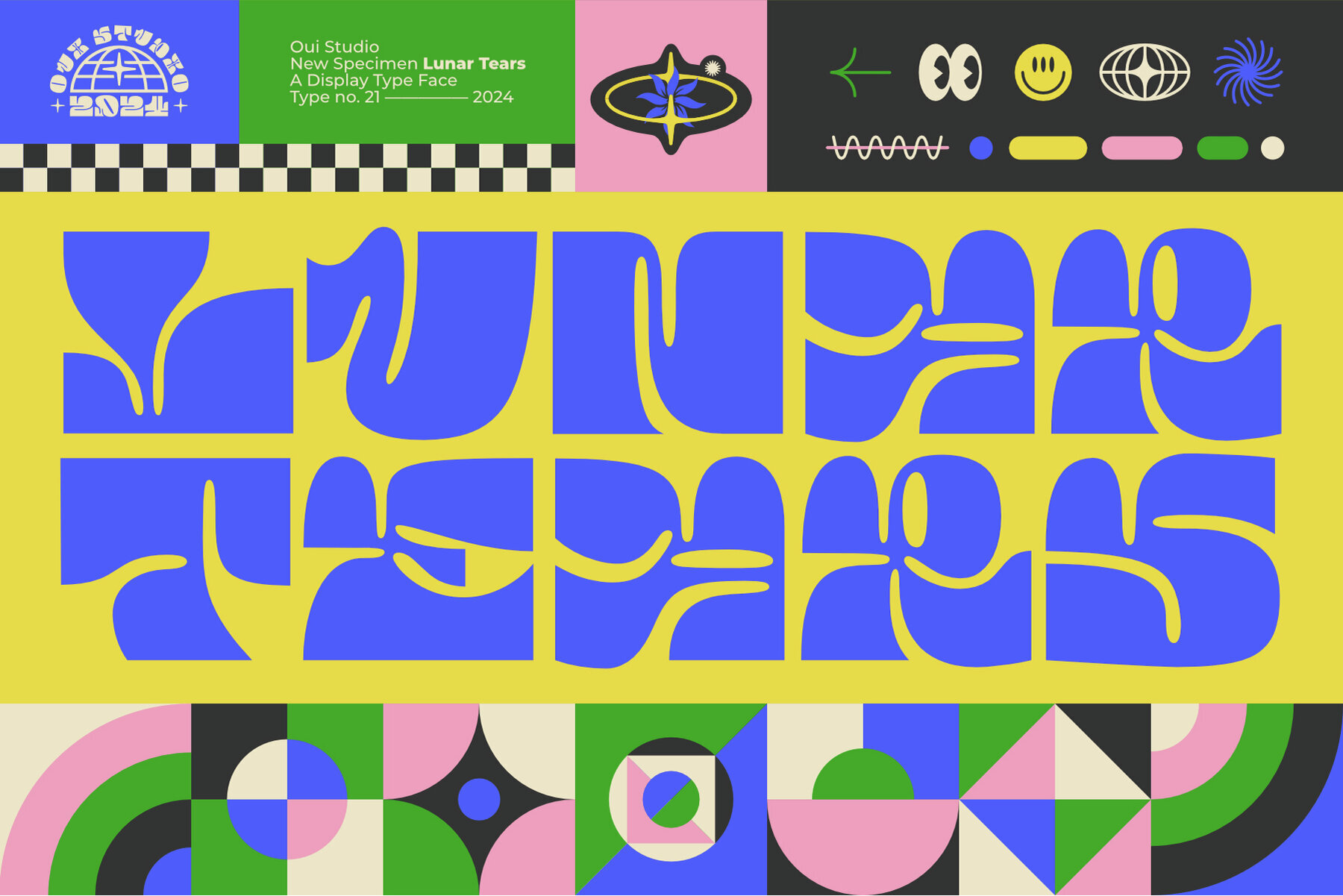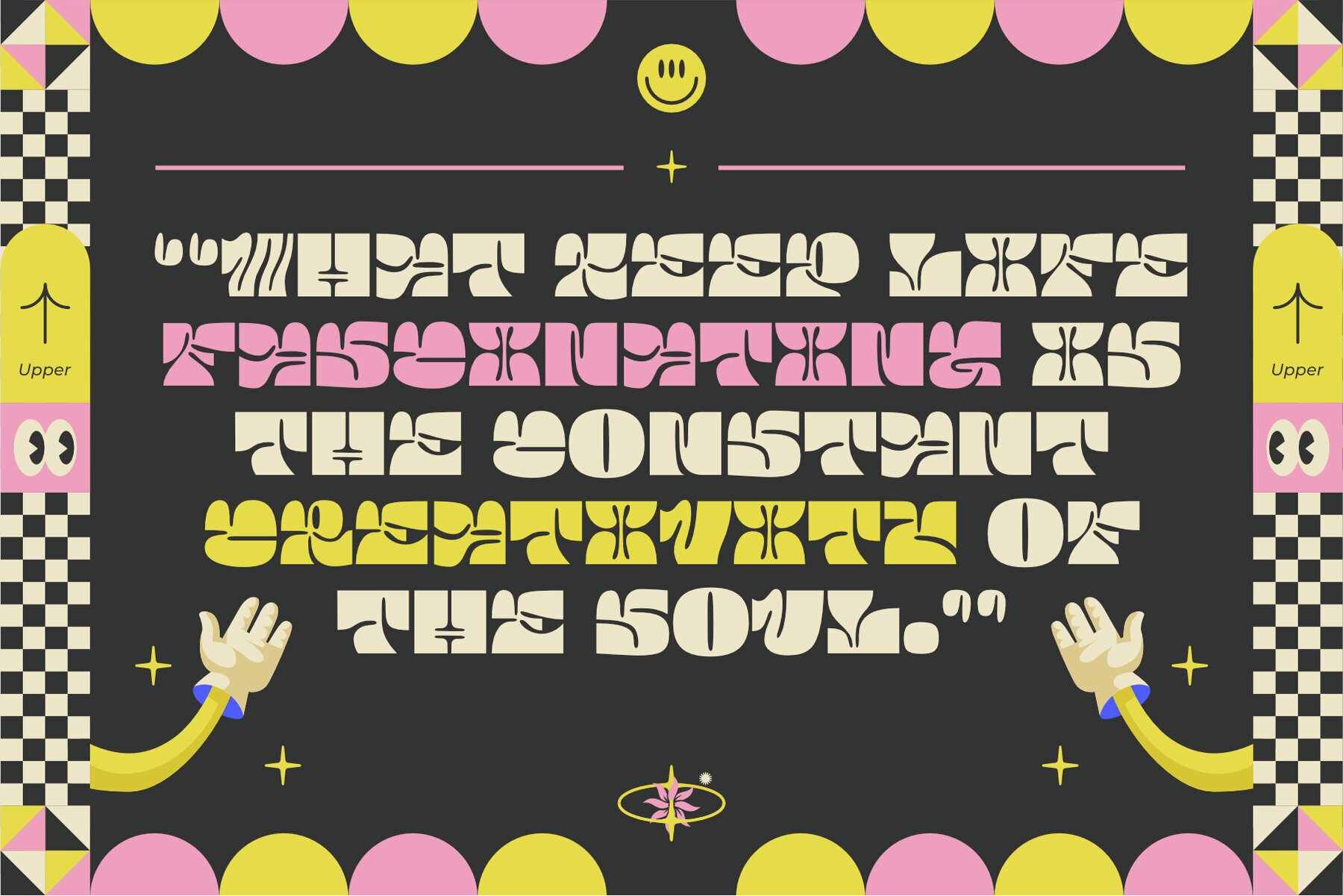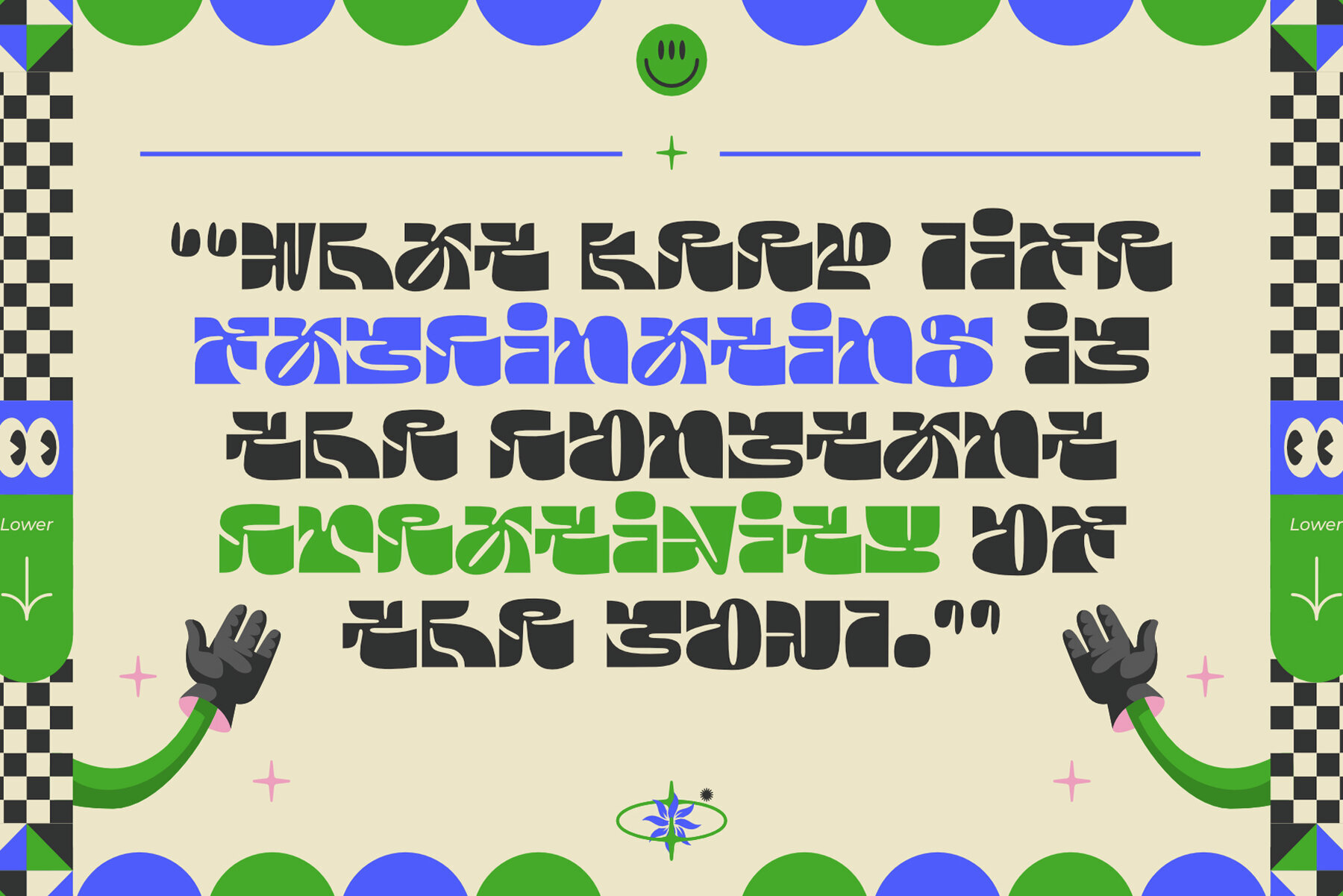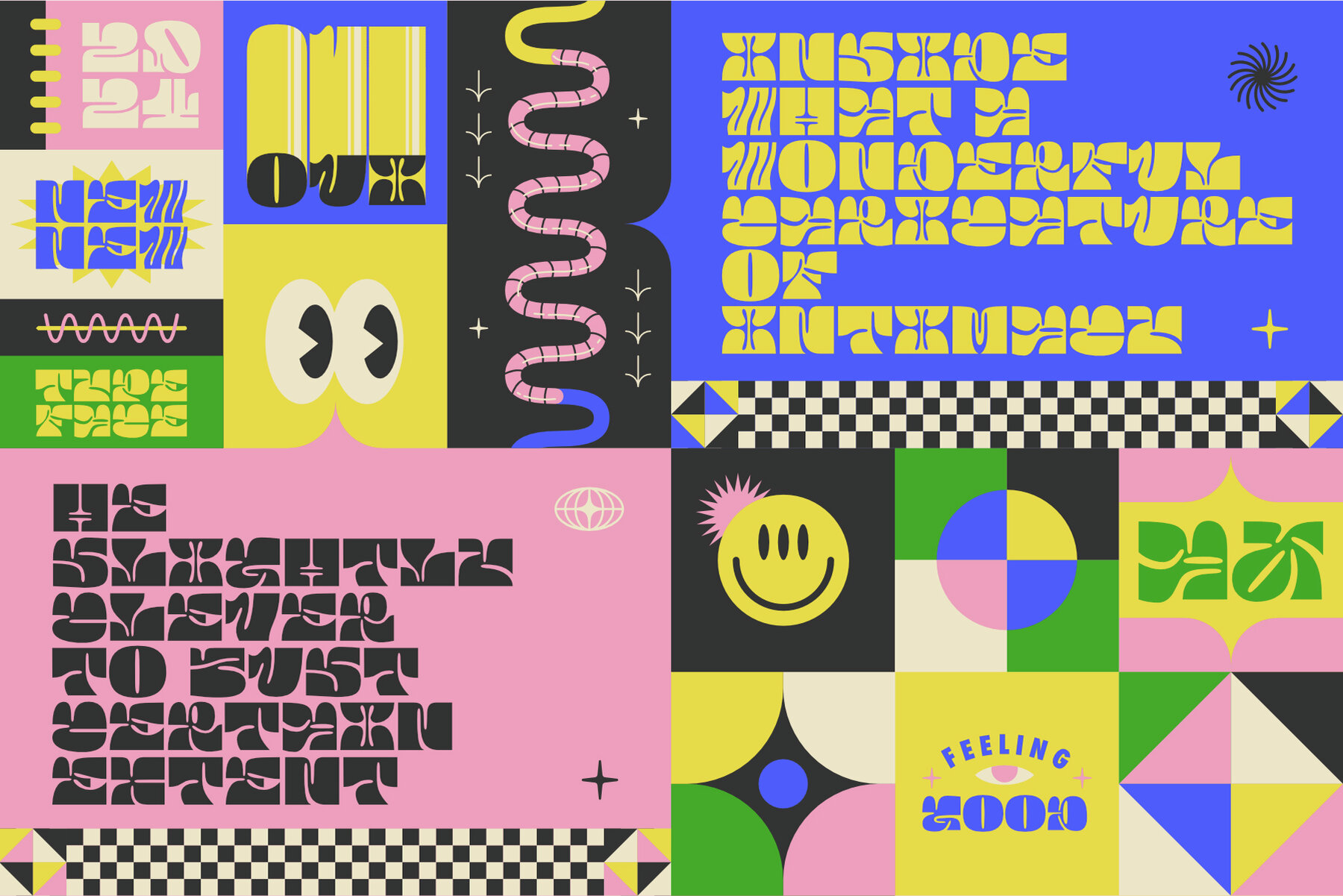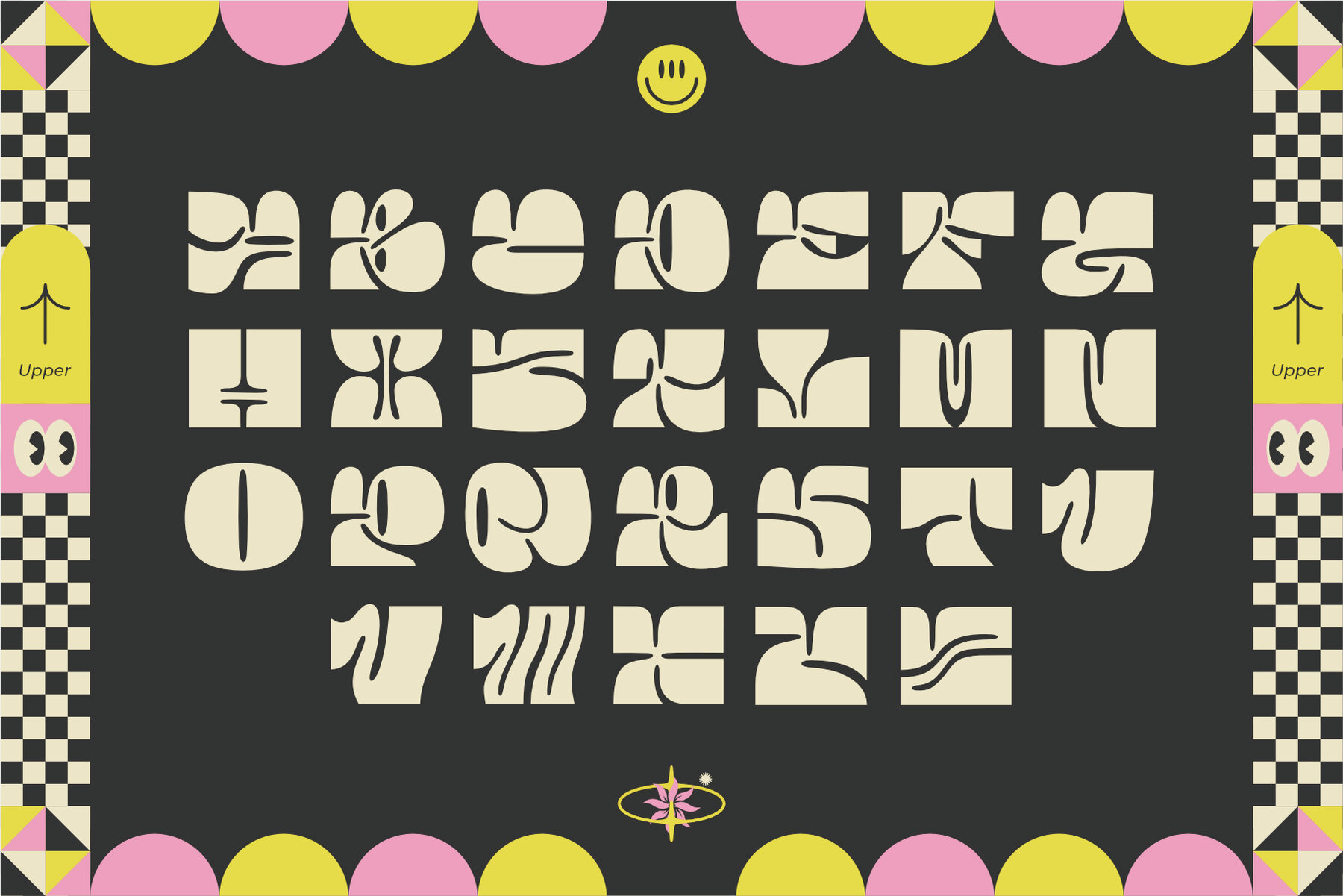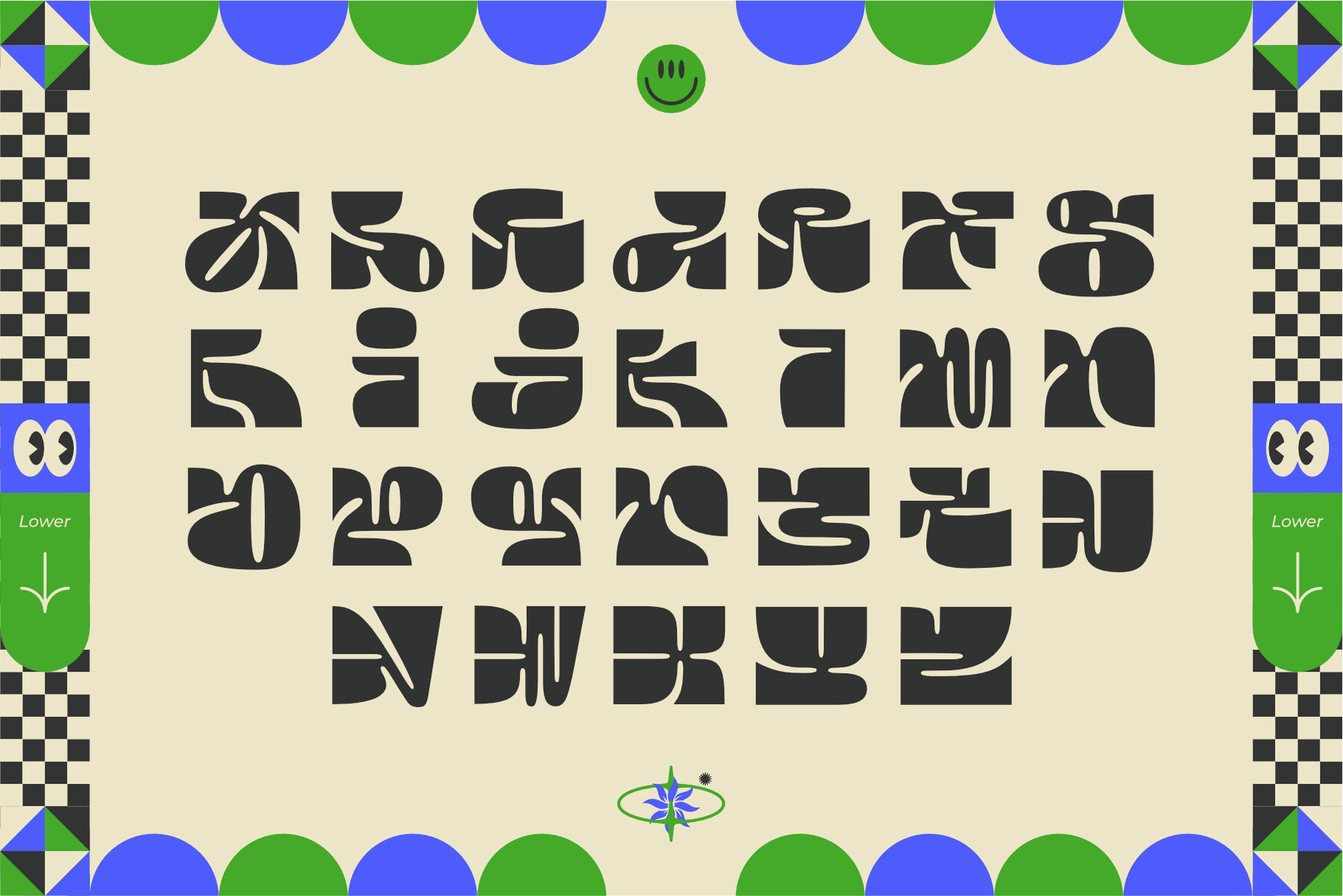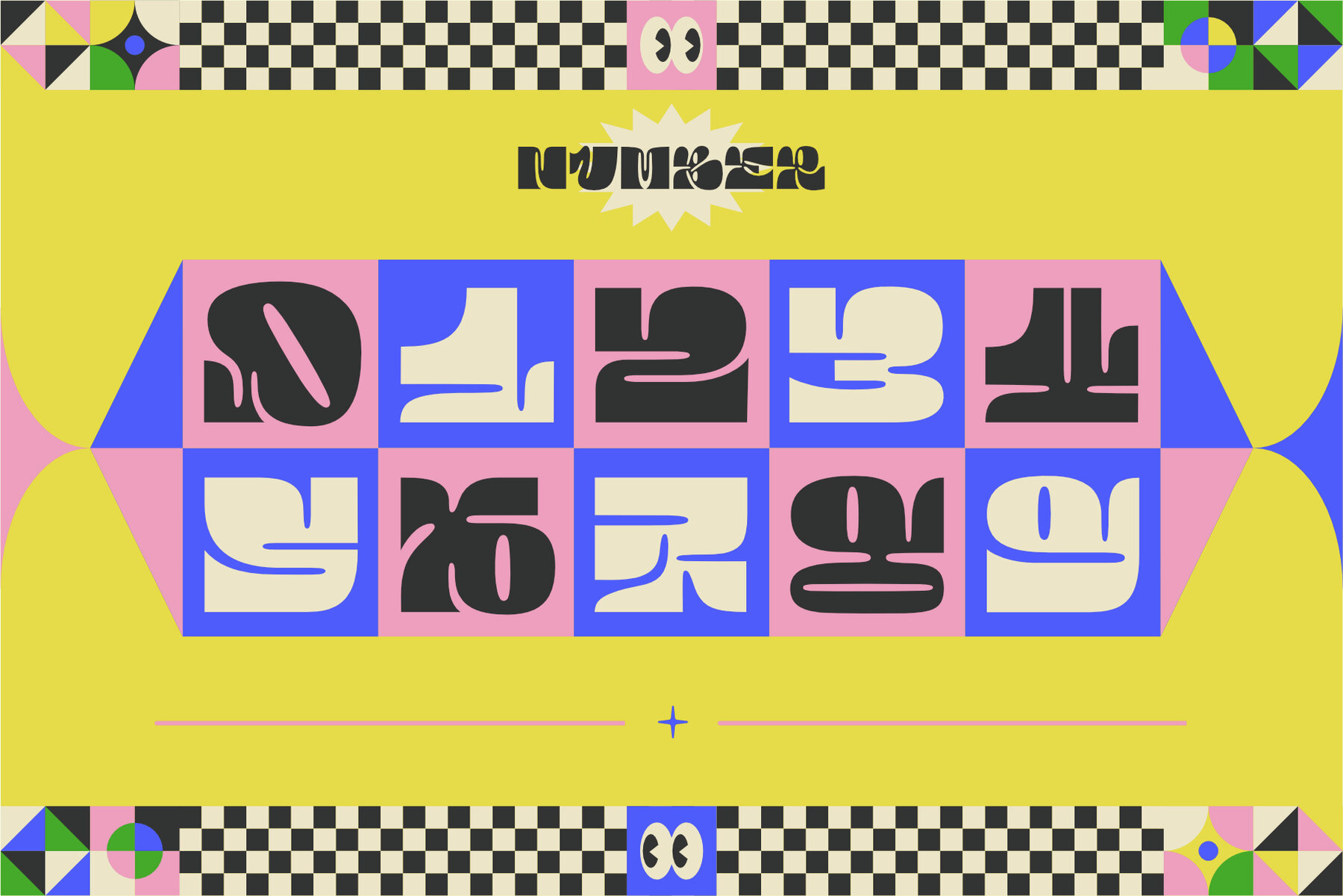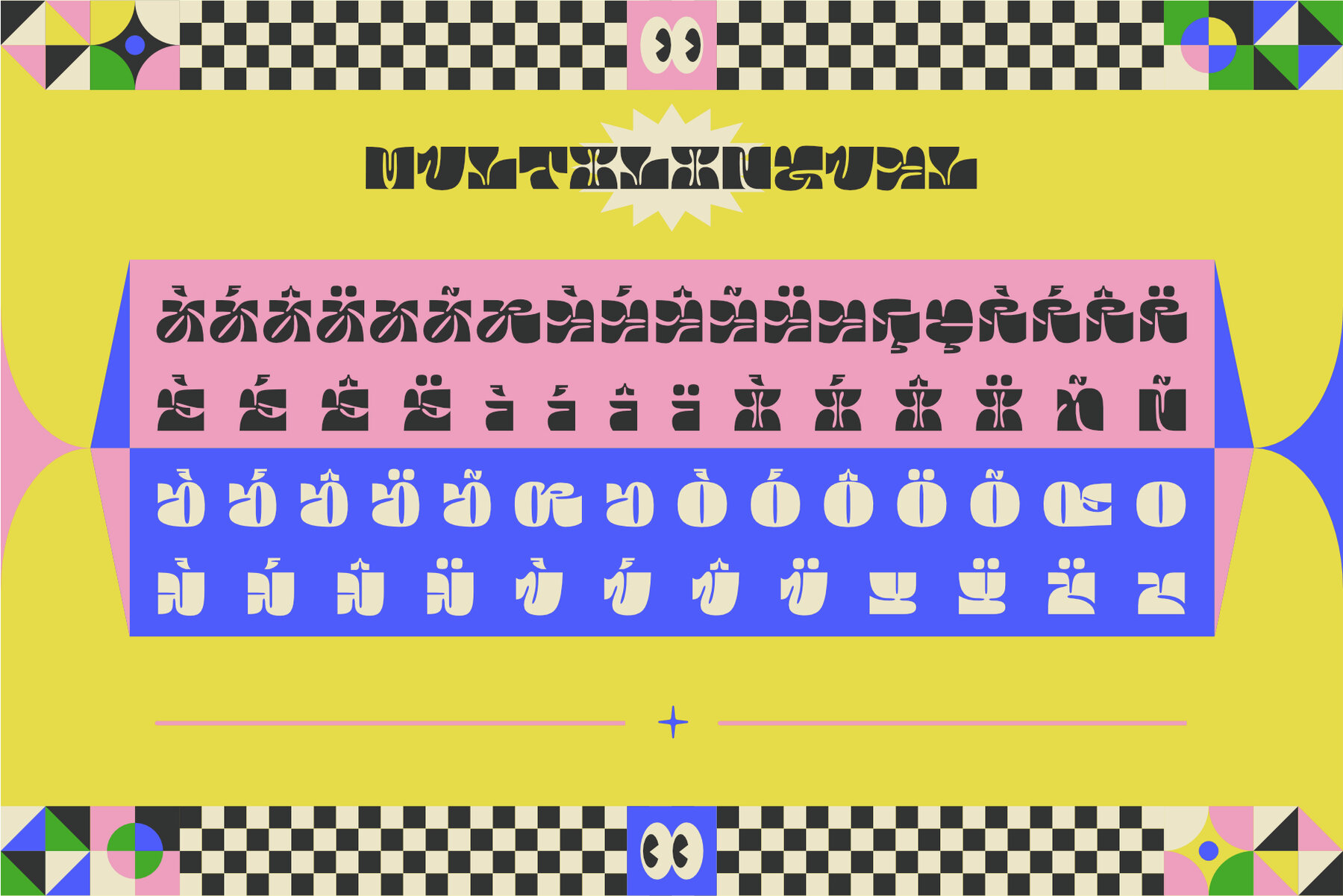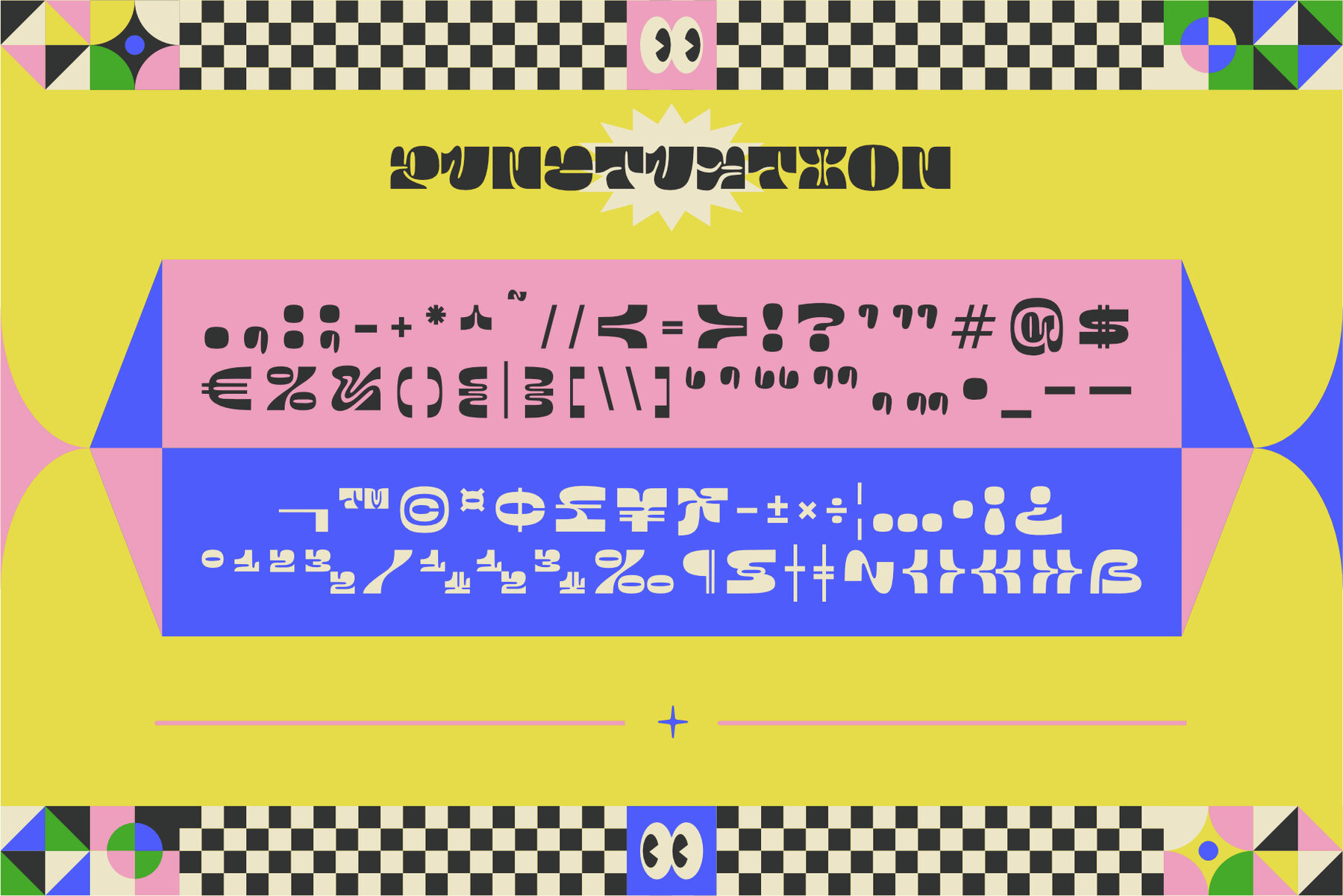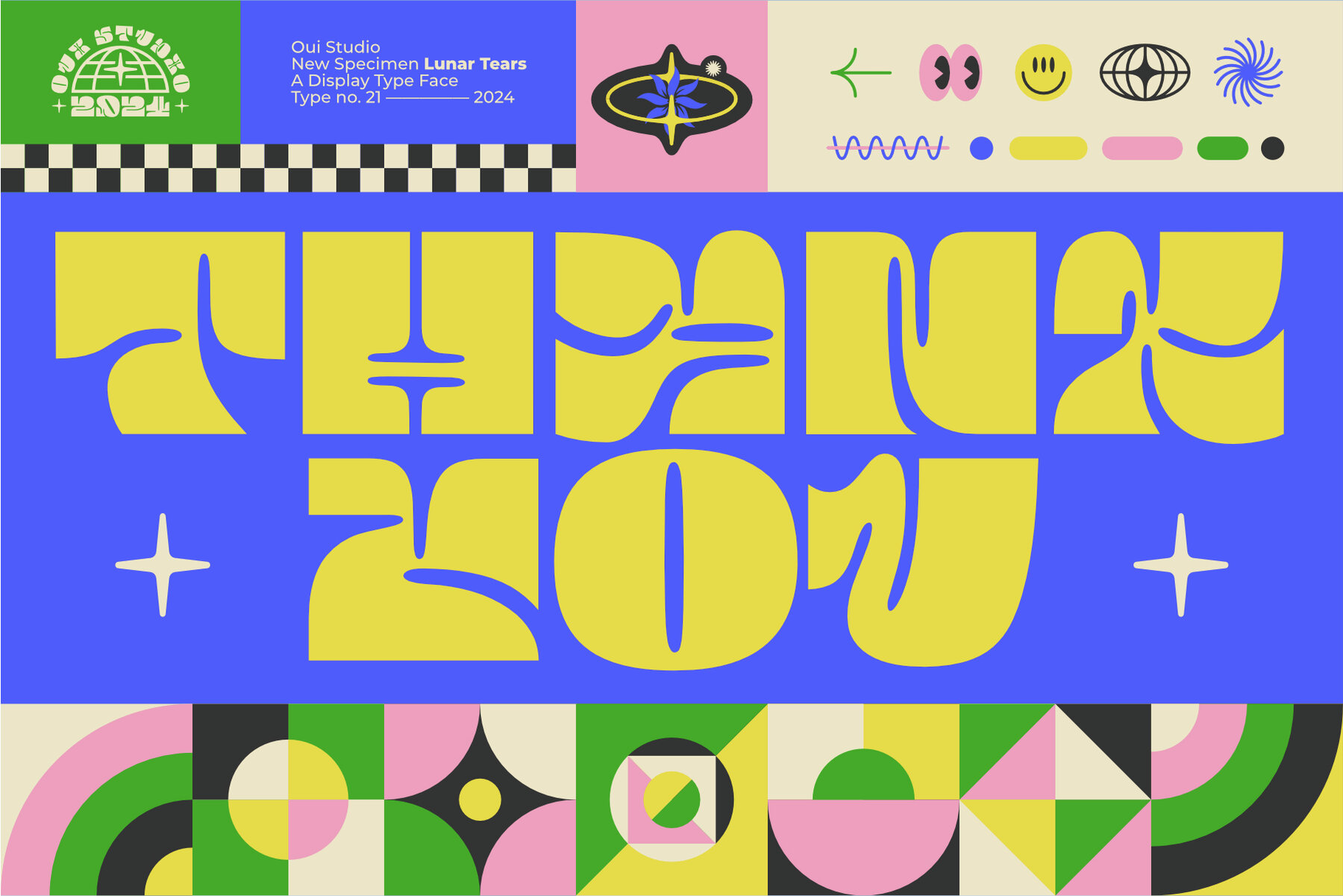
Lunar Tears Font
Lunar Tears Regular
Lunar Tears by Oui Studio offers a unique and fresh groovy font, inspired by the dynamic forms and vibrant spirit of the groovy era. Its design captures the playful movement and natural shapes reminiscent of bubblegum, making it a colorful and lively addition to any design project.Lunar Tears: A Groovy, Dynamic Typeface